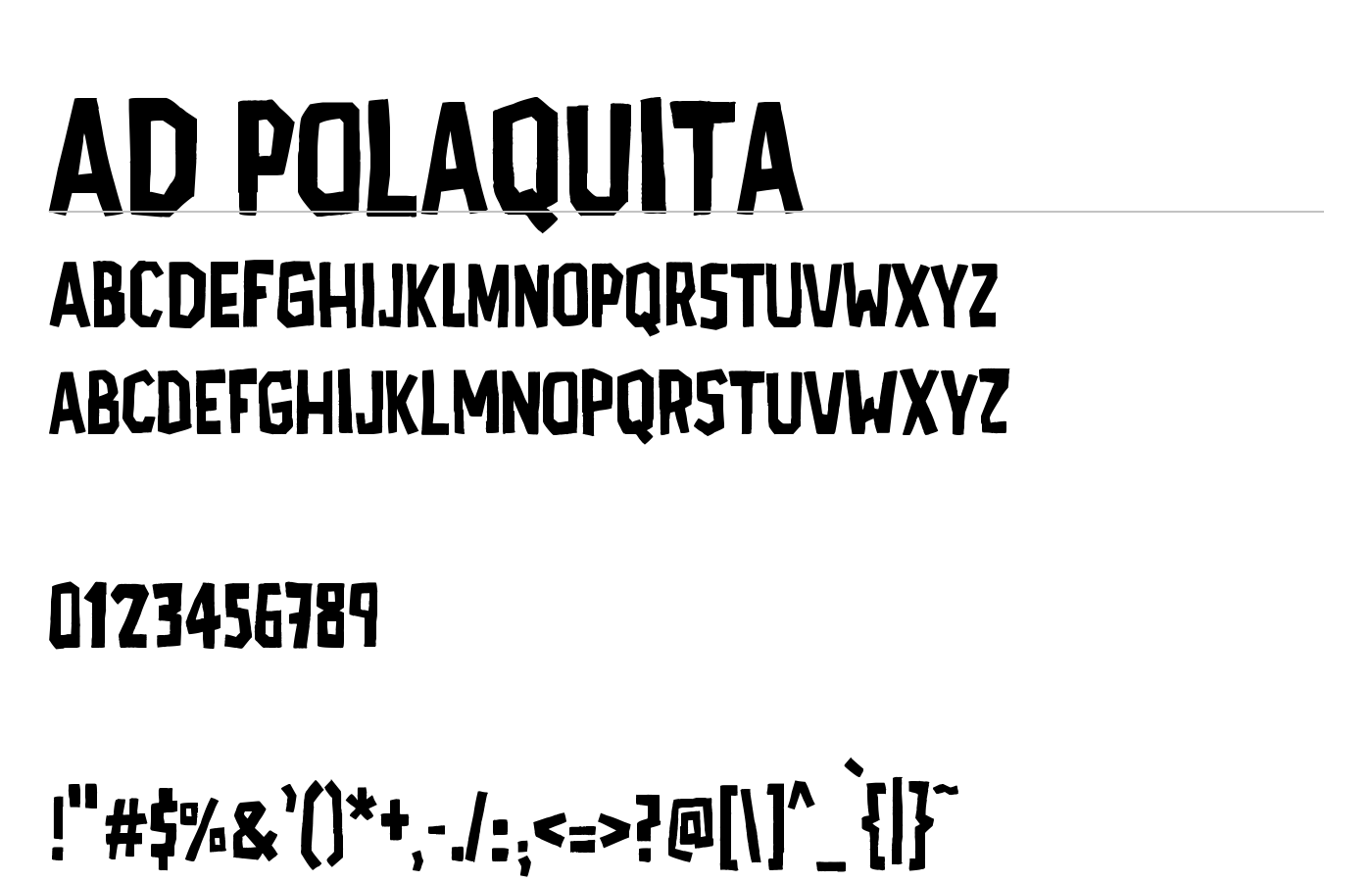
AD Polaquita is a bold, condensed sans serif font with a hand-crafted, slightly irregular style that gives it a playful and energetic personality. Its rough edges and uneven strokes make it perfect for creative, informal designs where a touch of uniqueness and fun is needed. This font works well for eye-catching headlines, posters, and branding that seeks a distinctive, casual vibe.
AD Polaquita Font
About AD Polaquita Font